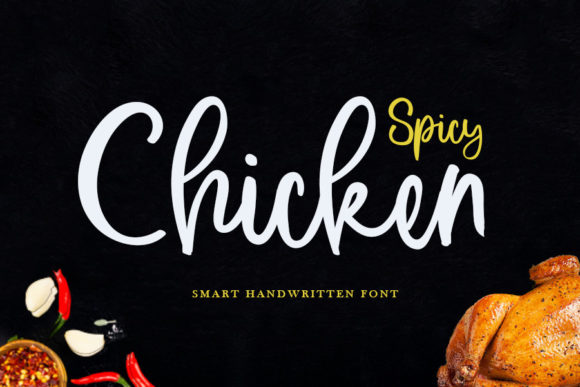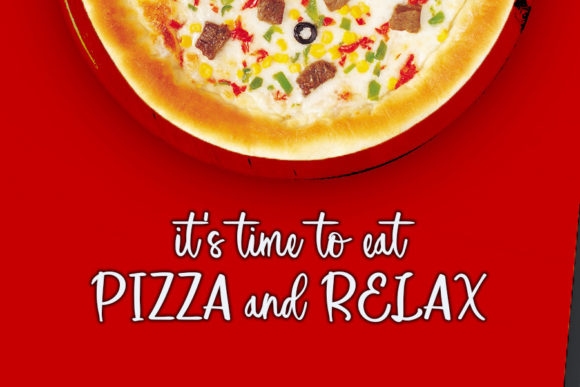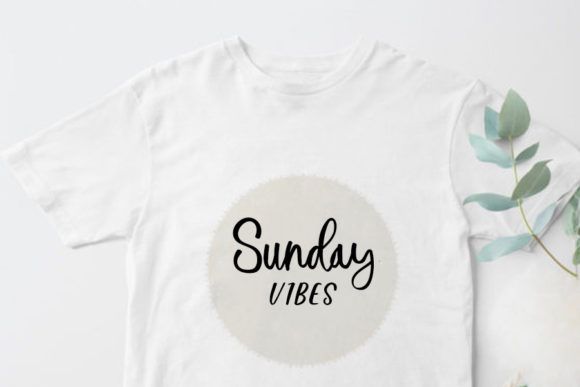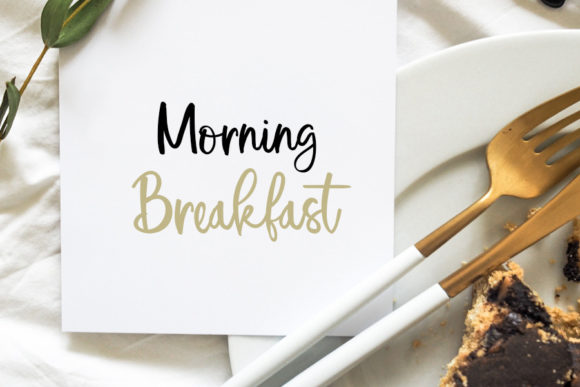
About Spicy Chicken Font
Spicy Chicken is a fun and relaxed script font. Incredibly versatile, this font fits a wide pool of designs, elevating them to the highest levels. This font is PUA encoded which means you can access all of the glyphs and swashes with ease!Â